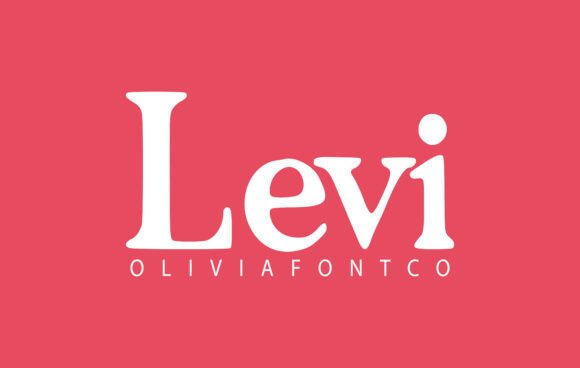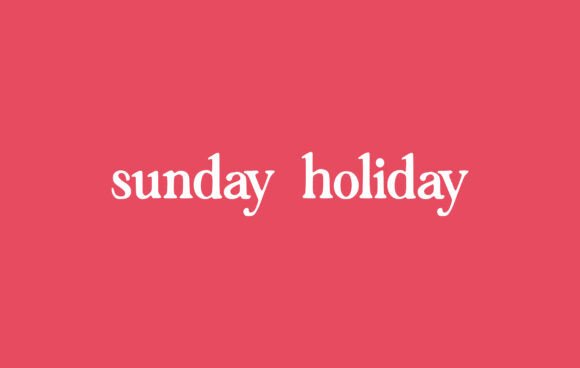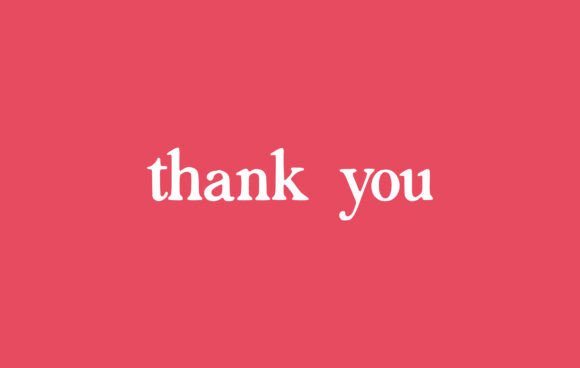
Levi Font
About the Levi Font
Discover the charm of Levi Font. This font is a perfect blend of modern aesthetics and classic appeal. Levi is an authentic serif font with a romantic touch. Expertly designed to be a true favorite, this font has the potential to take your creative ideas to the highest level
Levi’s romantic yet authentic feel makes it ideal for projects requiring a touch of vintage charm. It excels in headlines, short paragraphs, and branding applications where its elegance can shine. Consider it for wedding invitations, logos for boutiques, or short-form marketing materials. However, its serif design and slightly higher x-height might make it less suitable for extensive body text or UI elements where high readability over long stretches is crucial.
Pairing Levi with a clean sans-serif like Lato or Open Sans provides a contemporary counterpoint, balancing its romanticism with modern clarity. For a more playful feel, a handwritten script font could complement its curves, while a geometric sans-serif would offer a striking contrast, highlighting Levi’s unique character.
Overall, Levi projects a sophisticated and slightly nostalgic personality, best suited for brands and projects aiming for a refined, timeless aesthetic. Avoid using it where a bolder, more modern, or highly functional typeface is required.
Levi Font Usage Examples
Levi Font Example